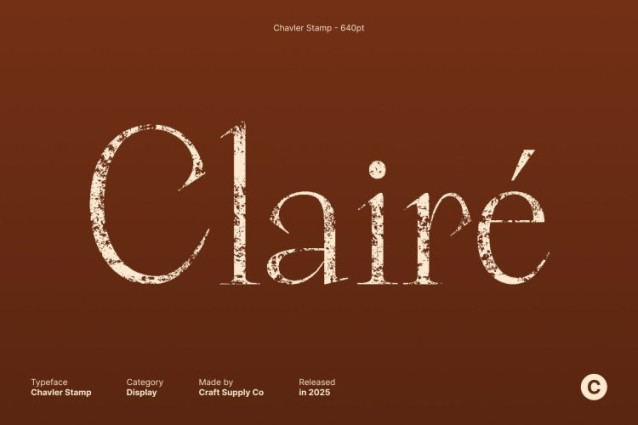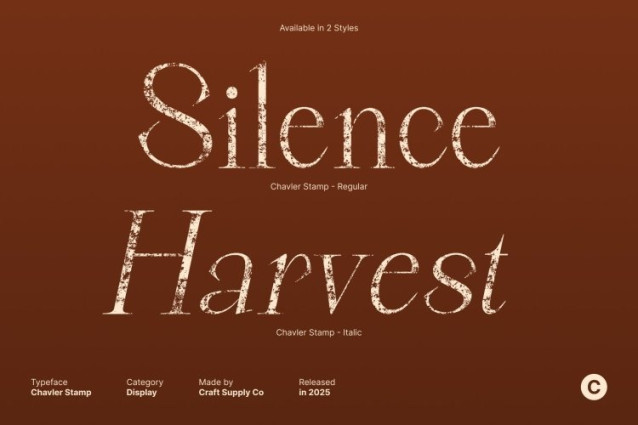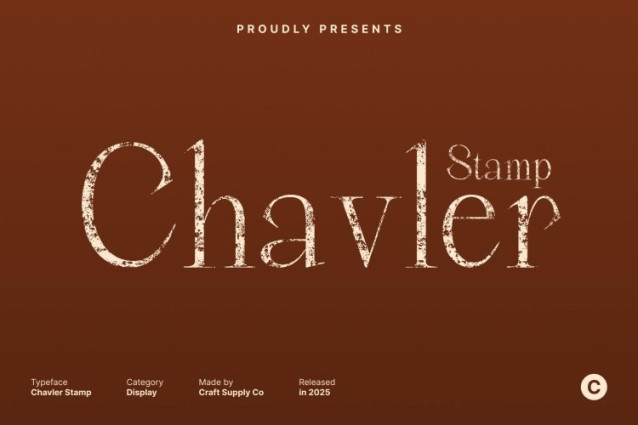
Chavler Stamp Font
Chavler Stamp Font This is an elegant serif font designed to convey luxury and refinement. Its smooth, flowing curves and carefully crafted letterforms create a high-end appearance that feels both classic and contemporary. Each character exudes sophistication, making this typeface perfect for designers who want to bring elegance and style to their projects.
Elongated Details for Graceful Visual Impact
The font’s elongated serifs and subtle decorative strokes add visual interest and create a sense of grandeur. These refined details enhance the font’s luxurious appeal, ensuring that every word carries a sense of sophistication and poise. This font works beautifully for titles, headings, and display purposes where elegance is essential.
Stamp Texture for Unique Vintage Character
Adding depth and personality is the stamp texture, which introduces subtle imperfections and tactile appeal. This handcrafted effect gives a vintage yet distinctive quality, adding uniqueness to logos, editorials, and branding projects. The texture enhances the font’s elegance by combining classic luxury with handcrafted charm.
Ideal for Luxury Design, Editorials, and Branding
This font excels in applications where refinement and style are key. Perfect for luxury branding, high-end editorial spreads, packaging, and creative logos, this serif font balances elegance and personality. Its combination of graceful curves, elongated details, and vintage stamp texture ensures that every design feels polished, distinctive, and visually captivating.